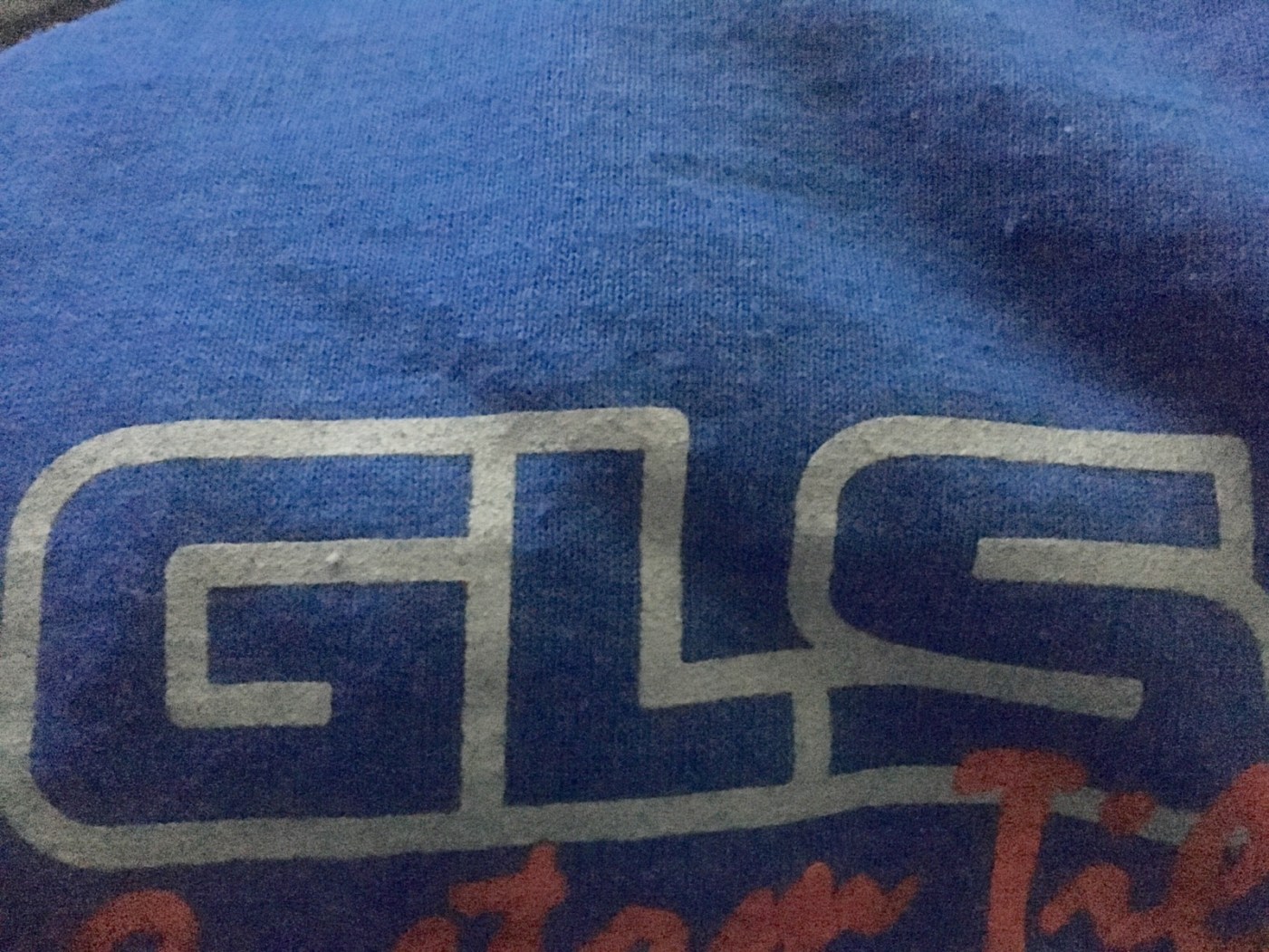
Font from small business logo
Good morning everyone. I am looking to help get some identification on the font used on the GLS portion of this logo. Any information regarding this bold styled logo is very much appreciated. Thank you guys!